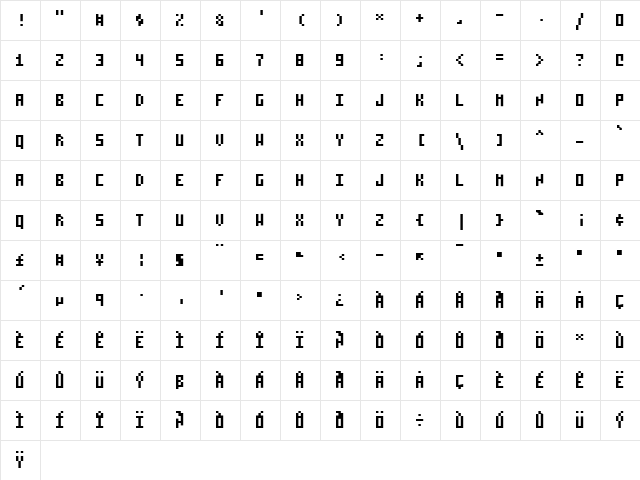
Pixelzim 3x5
| Designer | zeh rorshack |
Pixelzim celebrates the constraints of early digital type, turning pixel geometry into a distinctive and immediately recognisable style.
A natural choice for retro game titles, chiptune music branding, 8-bit UI, and digital nostalgia projects.